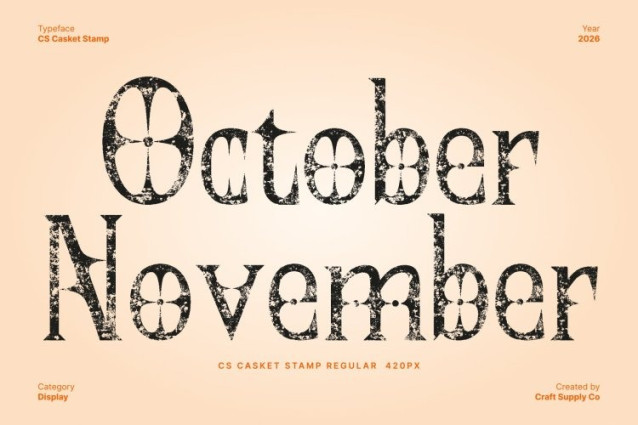
CS Casket Stamp Font
CS Casket Stamp Font This is a gothic display serif font inspired by the dark, intense aesthetics of metal rock culture. Built with sharp letterforms, ornate strokes, and intricate details, this typeface delivers a dramatic visual impact. The added stamp texture introduces a raw, worn character that amplifies its darkness and underground attitude.
Striking, Intense, and Textured Design
The gothic influence in this font creates a bold and aggressive tone. Sharp edges and elaborate forms are enhanced by distressed stamp details, giving the font a gritty, print-worn feel reminiscent of vintage posters, album art, and rebellious subculture graphics. This combination produces a powerful and visually arresting presence.
Perfect for Metal, Rock, and Dark Branding
Ideal for album covers, concert posters, band logos, merchandise, and alternative branding, excels in projects that demand intensity and attitude. Its textured gothic style captures the raw energy of metal music and dark visual identities.
Versatile for Bold and Underground Visuals
Whether used in music-related designs or dark-themed creative projects, delivers a strong and distinctive voice. Its fusion of ornate gothic structure and vintage stamp texture ensures designs feel aggressive, authentic, and unforgettable.